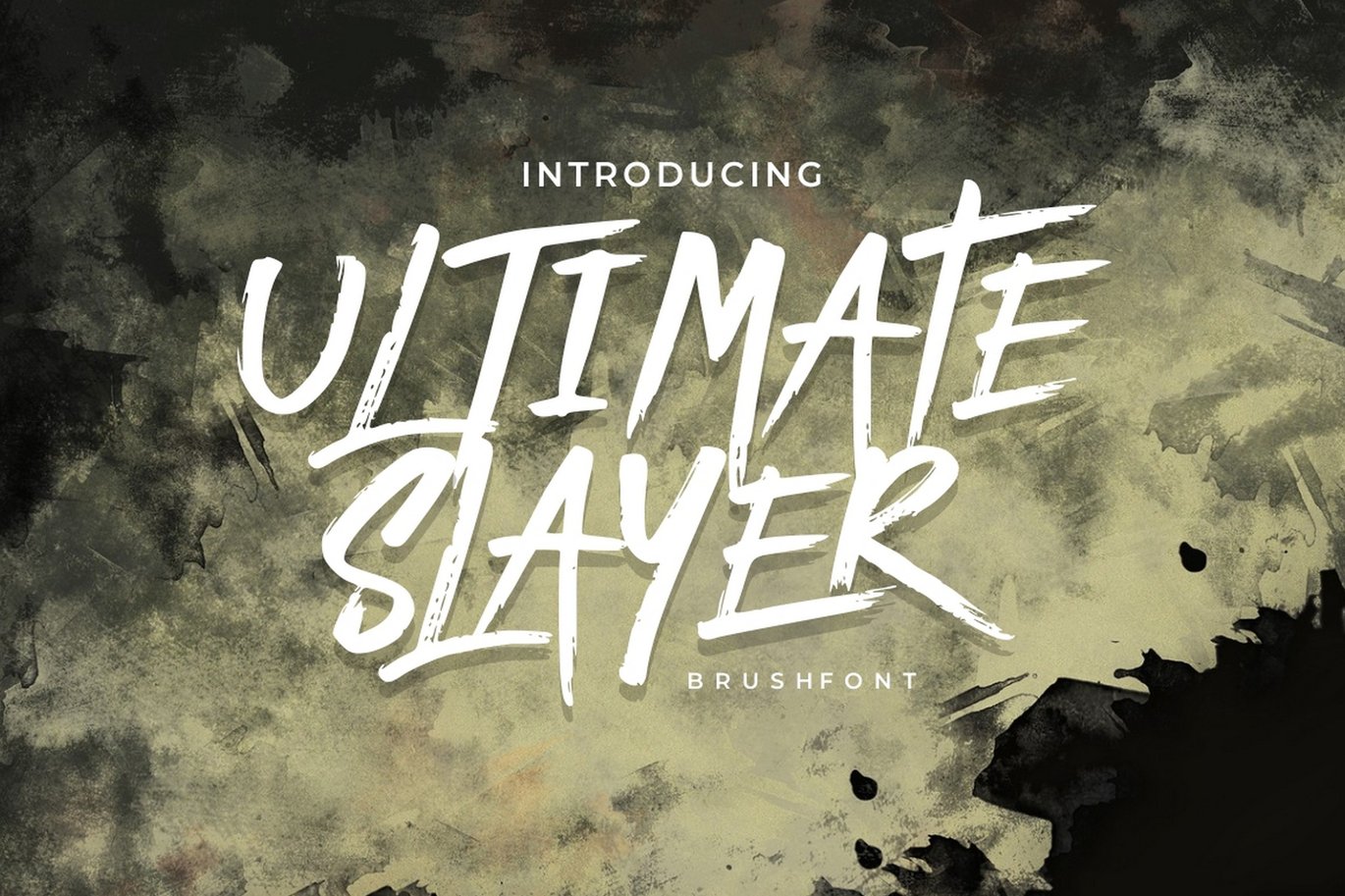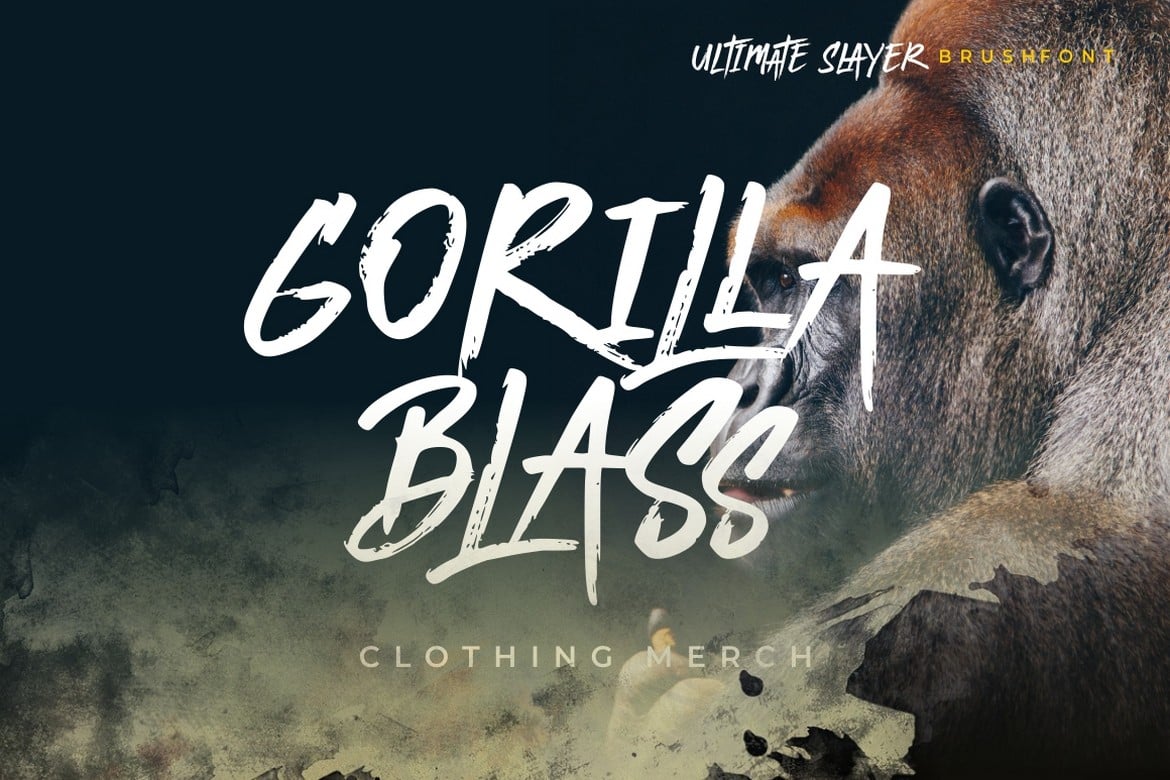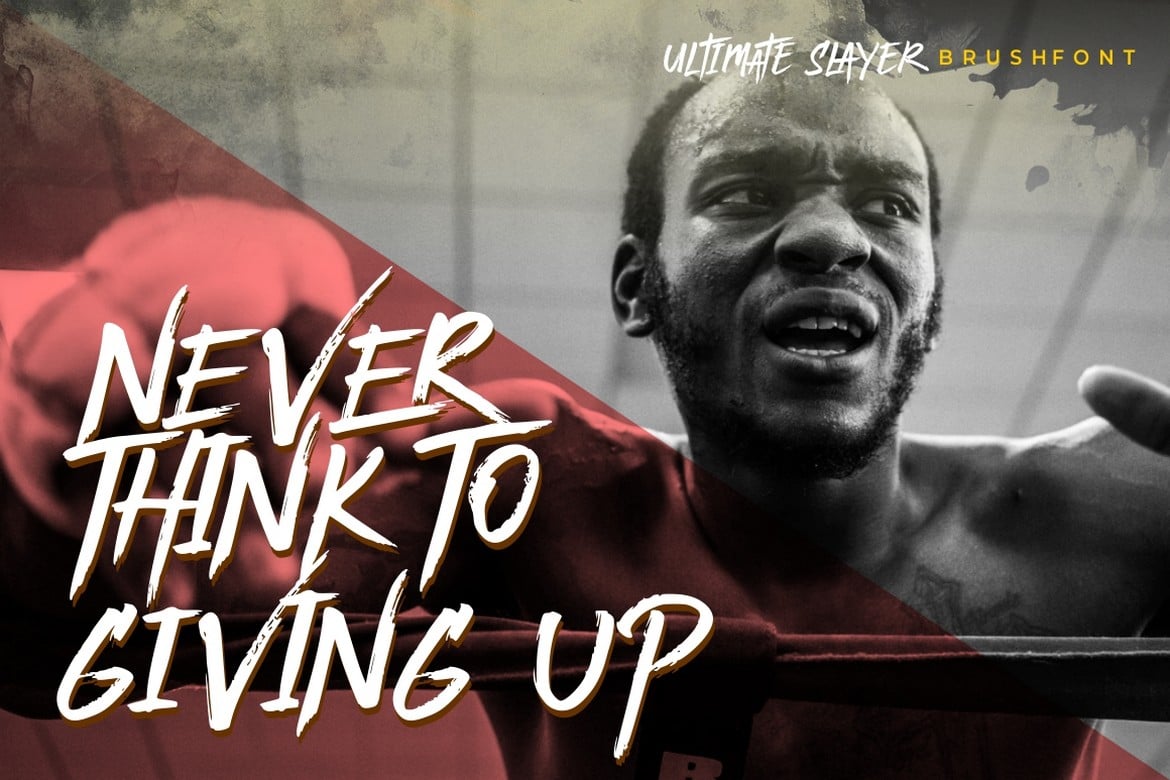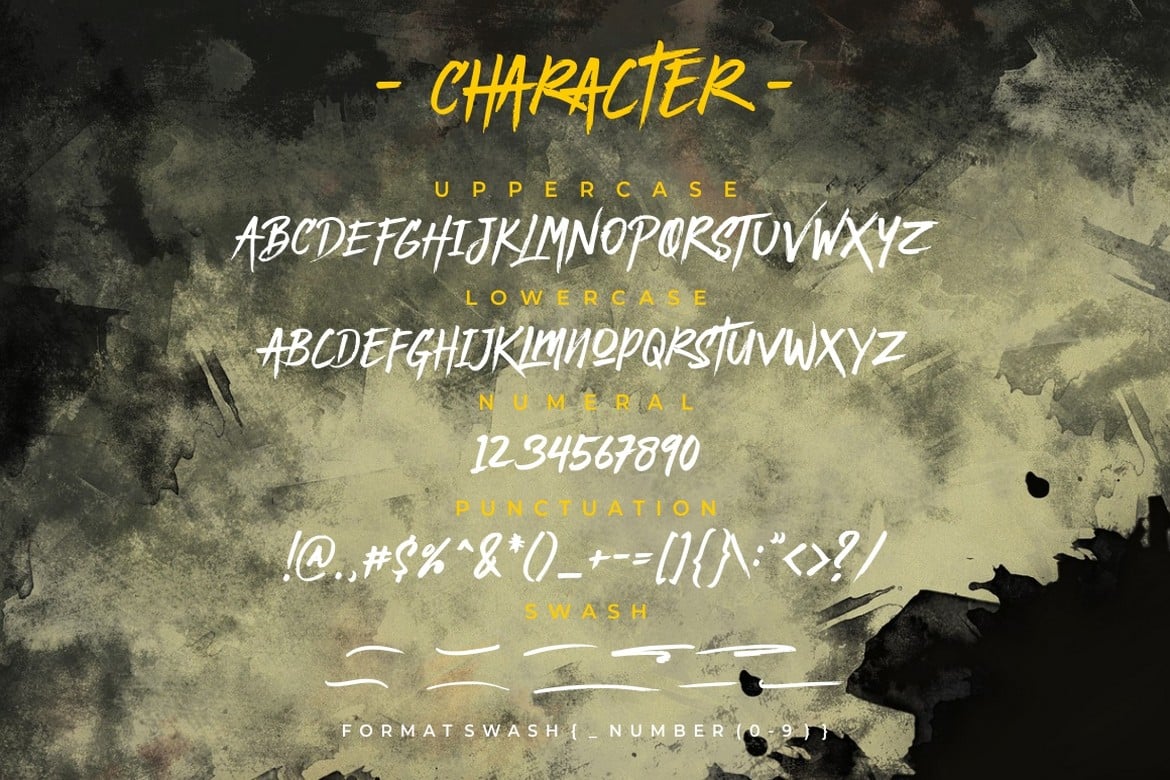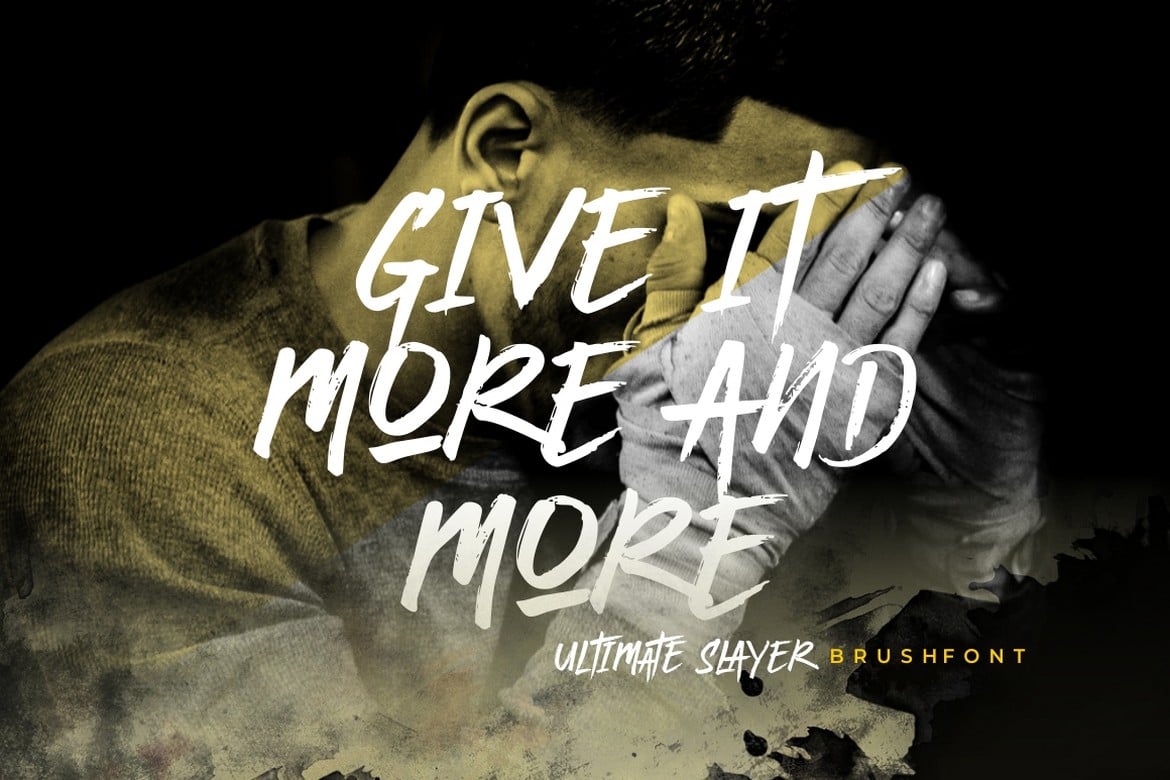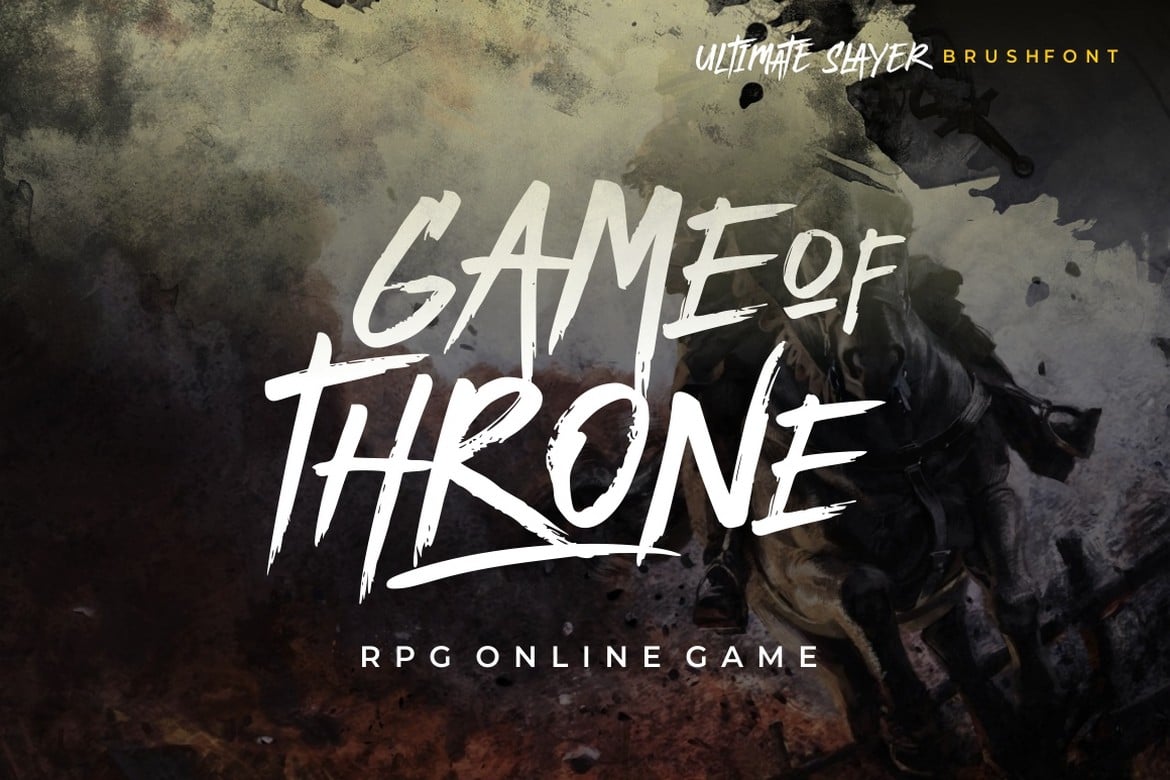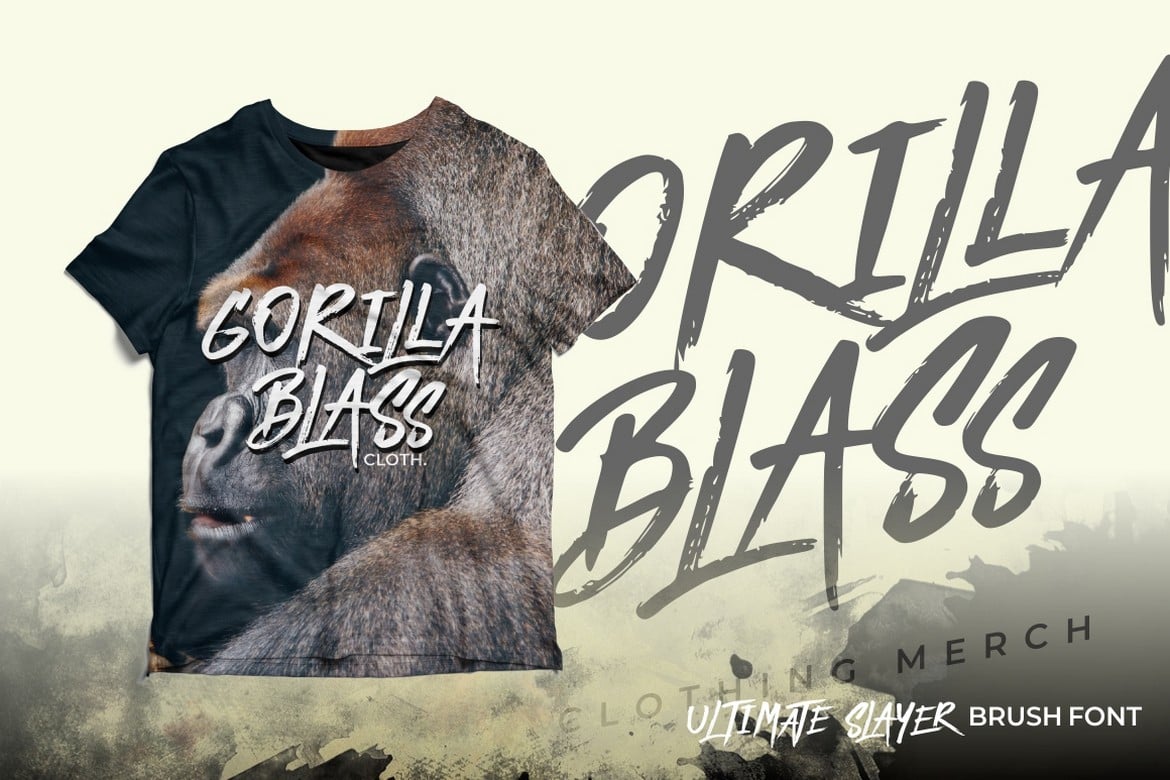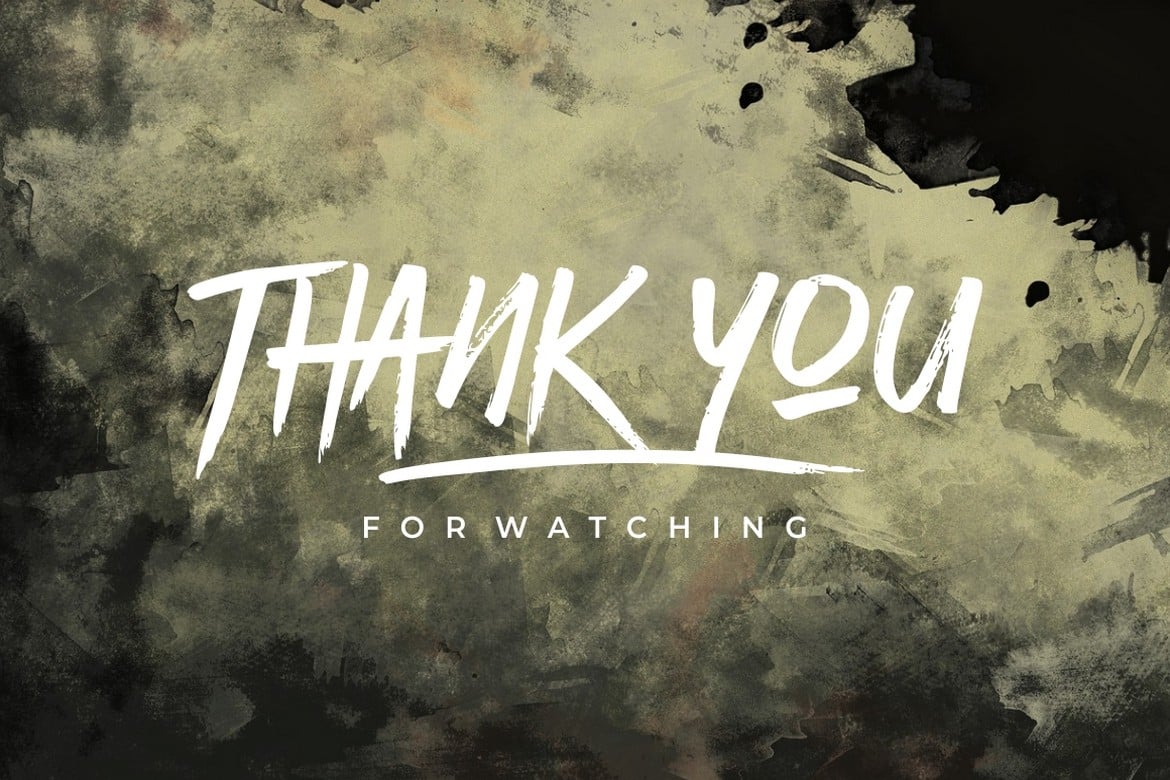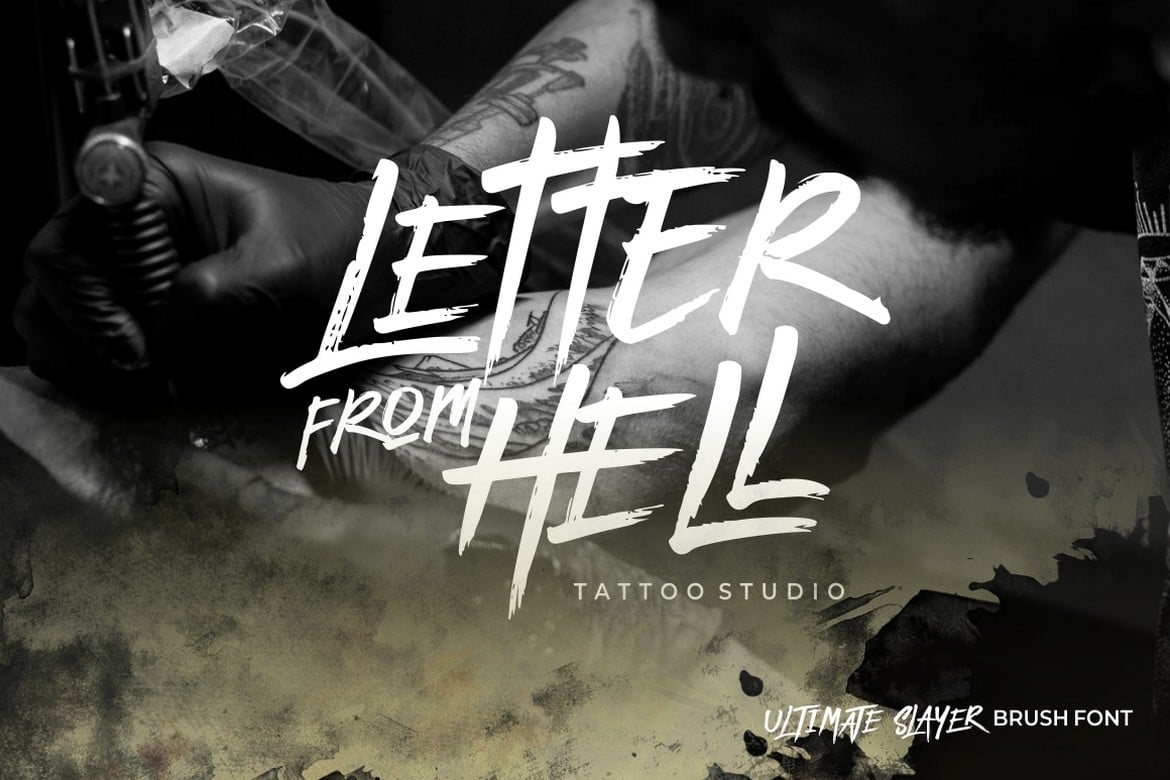
Ultimate Slayer – Handbrush Font
** ULTIMATE SLAYER – a Handbrush Typeface**
Introducing, ULTIMATE SLAYER – A Handbrush Typeface.
This font made from my original handwriting using brush pen then making it digital. So you can create a stunning and natural hand lettering quickly and easily.
You can use this font for making an awesome lettering, apparel projects, signature, album cover, logo, branding, magazine, social media, & advertisements, but also works great for other projects.
** Comes with feature : **
- Number, Punctuation And Symbols
- Multilanguage Support